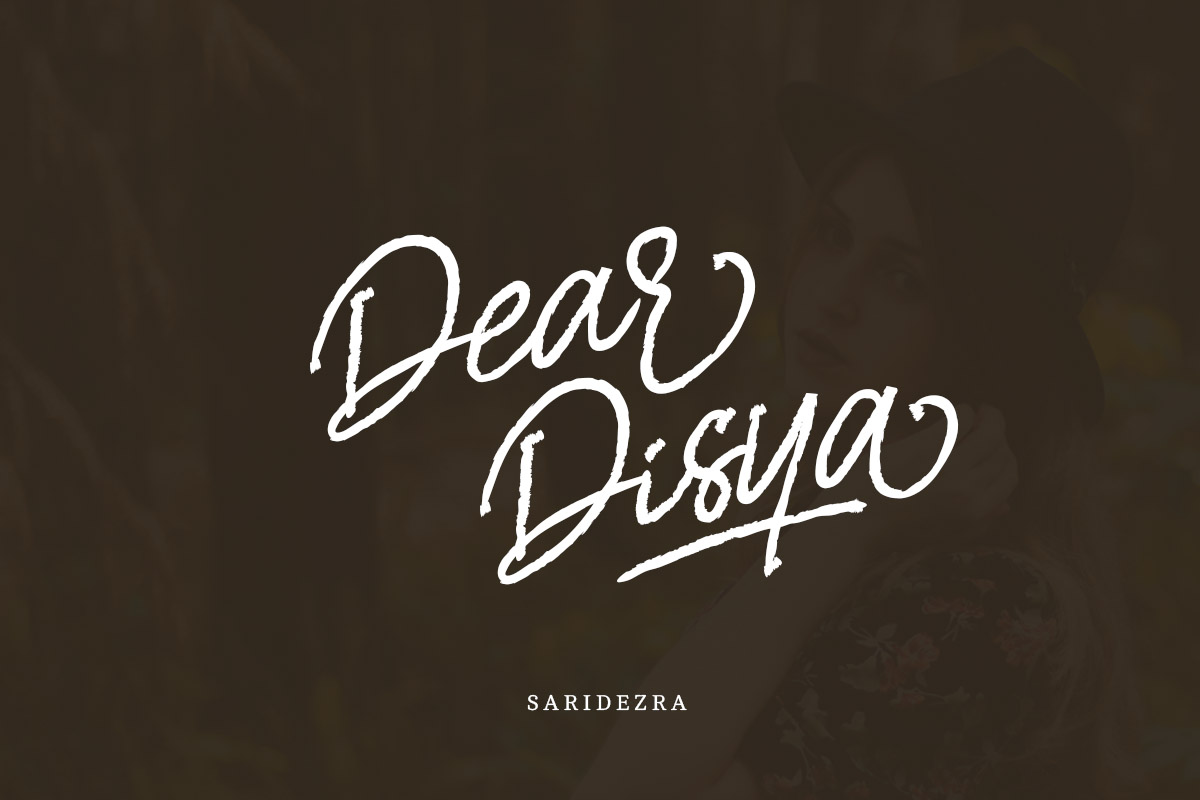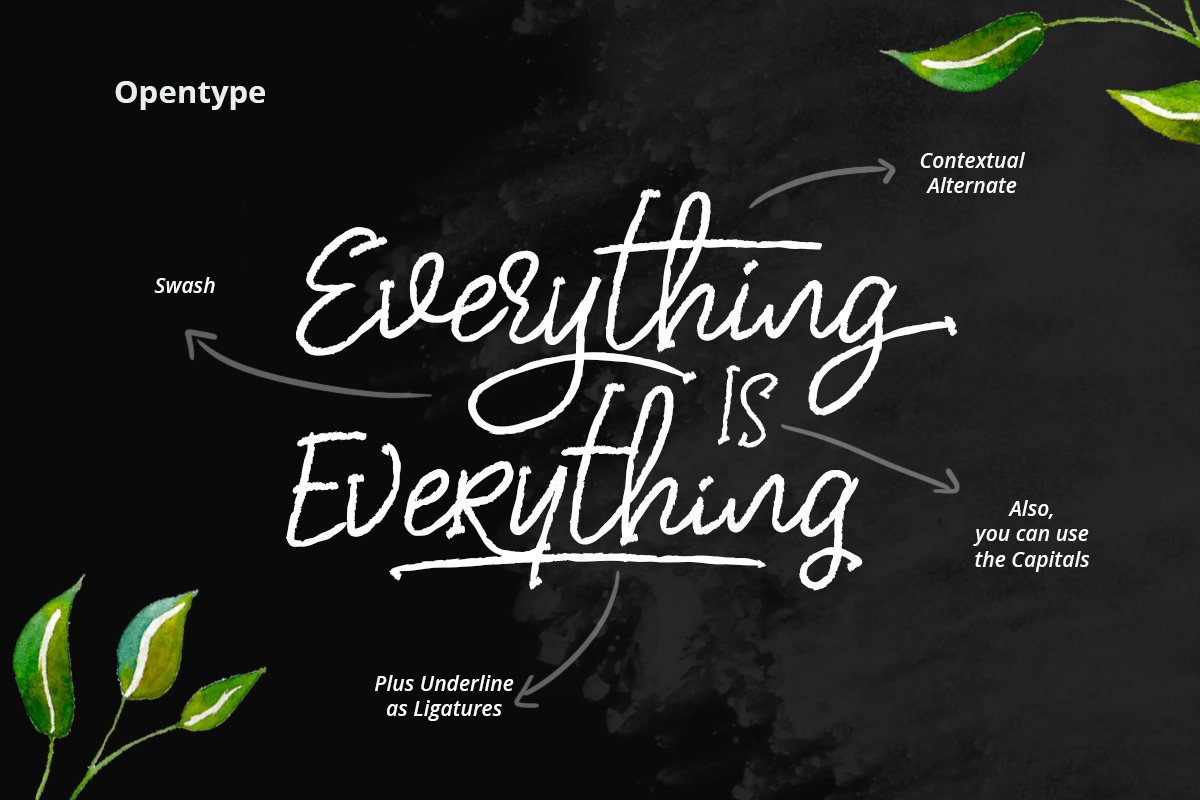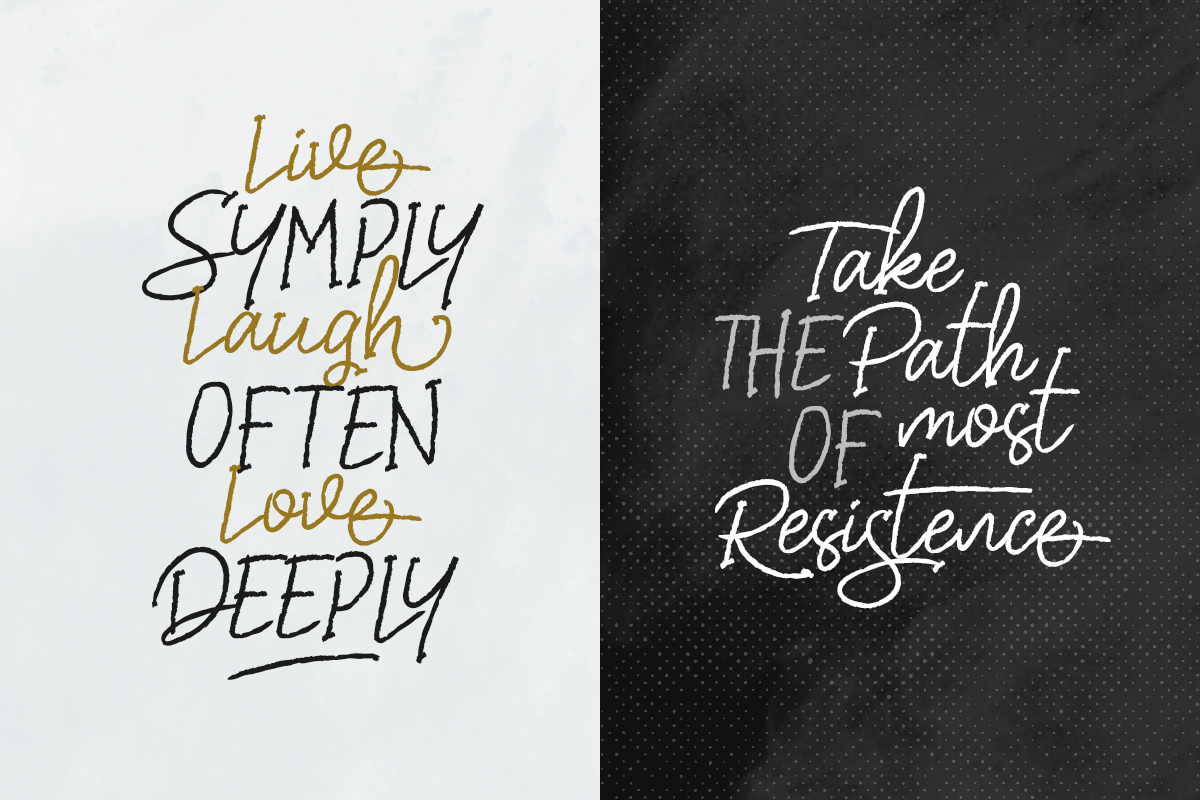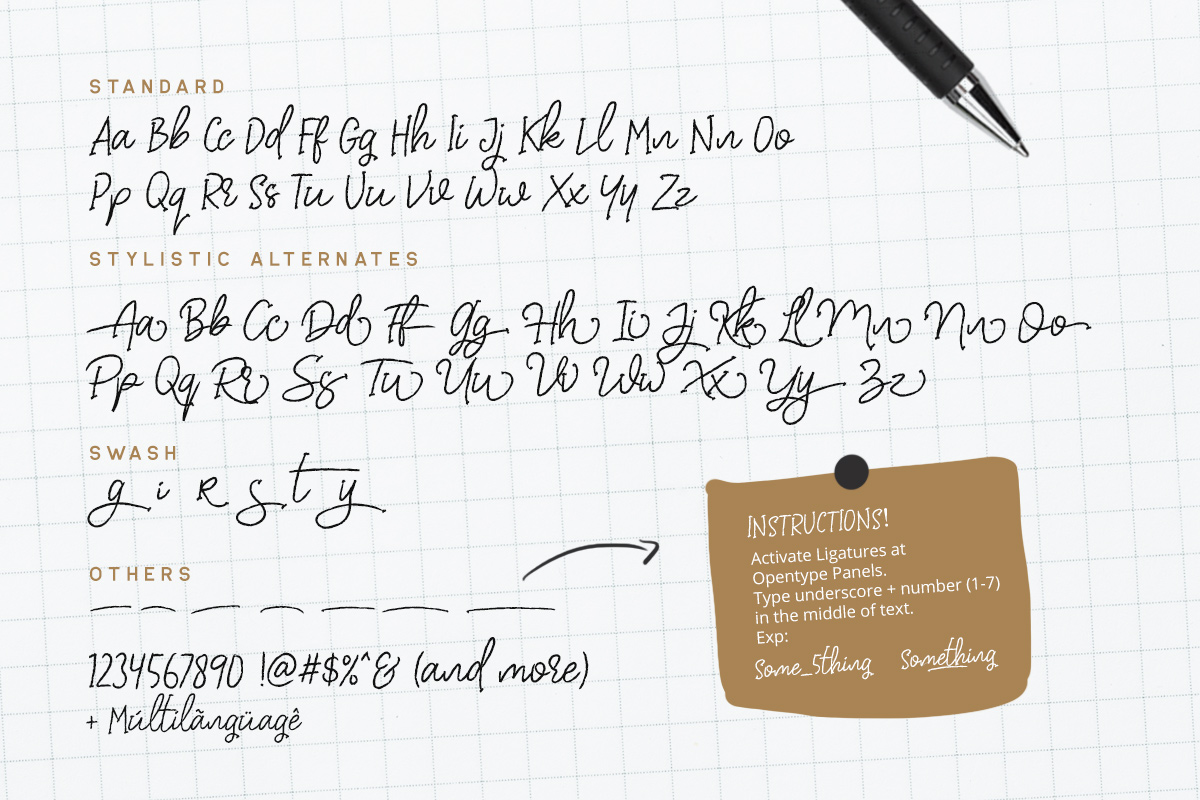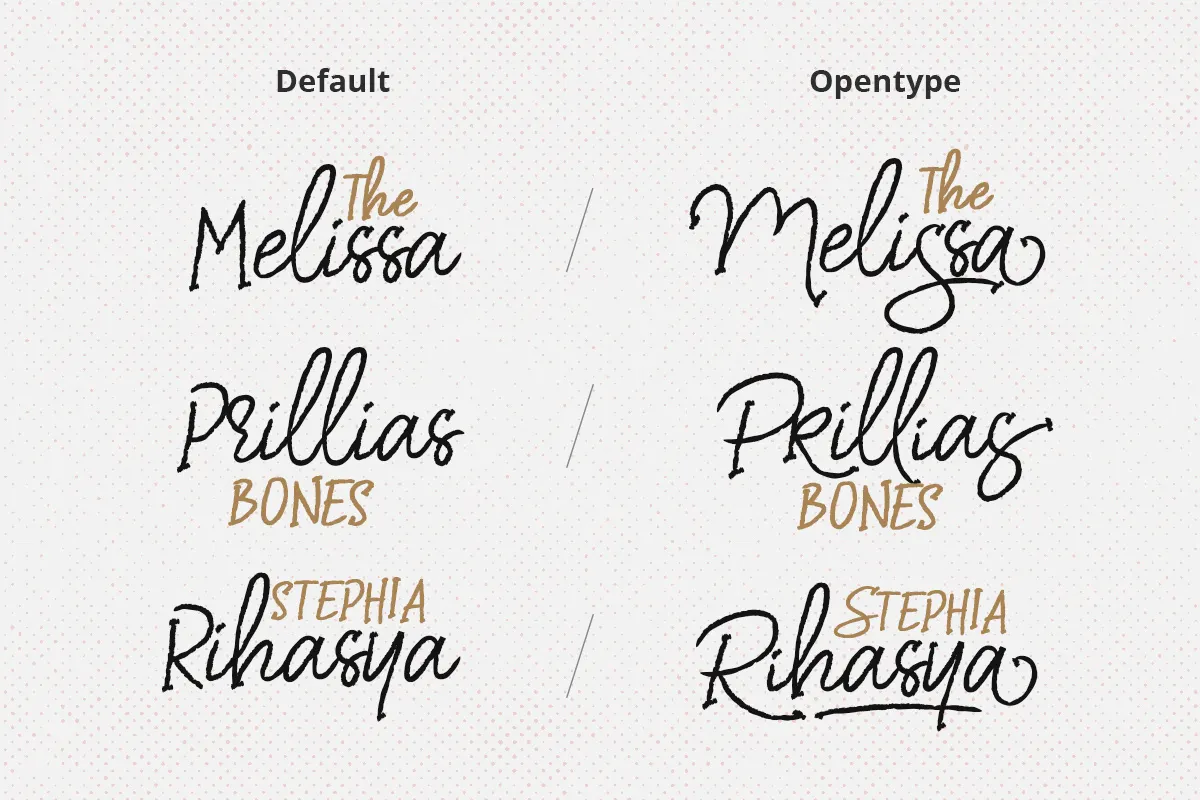
Dear Disya Handwritten Font
Dear Disya
Dear Disya moves like an actual signature, connecting letters flow into one another with the uneven rhythm of a hand that never lifts the pen. Ligatures step in wherever letters would otherwise collide, and a set of stylistic alternates and swashes lets individual characters shift shape without breaking the overall flow. Multilanguage support extends that same handwritten quality across a wider character set.